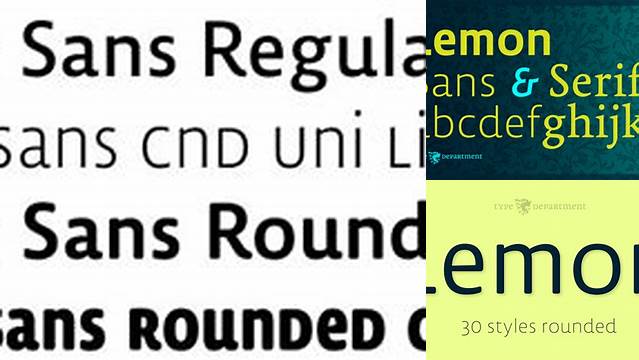
Hey guys! Looking for a fun, fresh, and rounded font to spice up your designs? Look no further! Lemon Sans Rounded is a fantastic choice, and in this guide, we'll walk you through everything you need to know about it, including where to find a free download. So, let's dive in!
1. What is Lemon Sans Rounded?
So, what exactly is Lemon Sans Rounded? Well, it’s a typeface that falls into the sans-serif category, but with a delightful twist – rounded terminals! This gives it a softer, friendlier, and more approachable feel compared to traditional sans-serif fonts, which often have sharp, angular edges. Think of it as the chill, easy-going cousin of Helvetica or Arial. Lemon Sans Rounded is super versatile. You can use it for headings, body text, logos, and pretty much anything else you can think of. Its clean lines ensure readability, while the rounded corners add a touch of personality. This font is a go-to for projects that require a modern yet playful aesthetic, making it a favorite among designers who want to strike that perfect balance. Its visual appeal is enhanced by its simple structure and excellent legibility, ensuring that your message is always clear and accessible. From website interfaces to print materials, Lemon Sans Rounded brings a contemporary touch that resonates with a wide audience. You'll often see this font used in branding for startups, educational materials, and even in mobile app designs, thanks to its ability to convey friendliness and innovation. It’s a font that doesn't shout for attention but quietly enhances the overall look and feel of any project. The reason it works so well is that it embraces simplicity while adding subtle character through its rounded edges, making it universally appealing and easy to integrate into various design schemes. Consider Lemon Sans Rounded if you aim to communicate approachability and modernity simultaneously.
2. Key Features of Lemon Sans Rounded
Okay, let's talk features! Lemon Sans Rounded boasts a bunch of things that make it stand out. Its rounded terminals, as we've mentioned, are a defining characteristic, lending it a gentle and inviting appearance. The font typically includes a variety of weights – from light to bold – giving you flexibility in your designs. Need a subtle, elegant look? Go with a light weight. Want to make a bold statement? Crank it up to bold! The character set usually supports a wide range of languages, including Latin-based alphabets, and often includes special characters, punctuation, and numerals. This broad support ensures you can use Lemon Sans Rounded in various international projects without worrying about missing glyphs. Another key feature is its consistent design across all weights and styles. Whether you're using the regular, italic, or bold versions, the font maintains a cohesive look, ensuring visual harmony throughout your design. This consistency is crucial for maintaining a professional and polished appearance. Furthermore, Lemon Sans Rounded is often designed with optimal readability in mind. The spacing between letters and the overall structure of the glyphs are carefully crafted to ensure that text is easy to read, even at smaller sizes. This makes it an excellent choice for body text as well as headlines. Many versions of Lemon Sans Rounded also come with OpenType features, such as ligatures and stylistic alternates, which can add a touch of uniqueness and sophistication to your typography. These features allow you to customize the font to suit your specific needs and preferences, making it even more versatile. All these features combine to make Lemon Sans Rounded a highly functional and aesthetically pleasing font, perfect for a wide range of design applications.